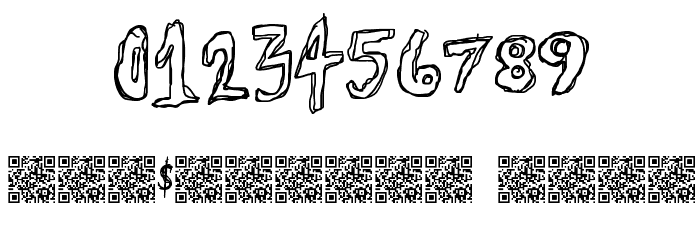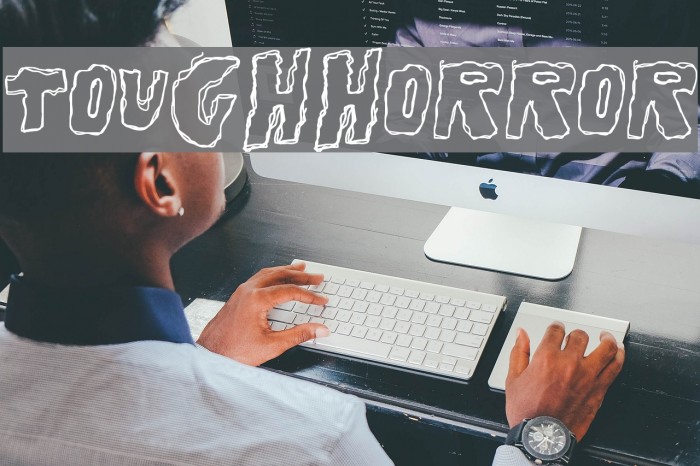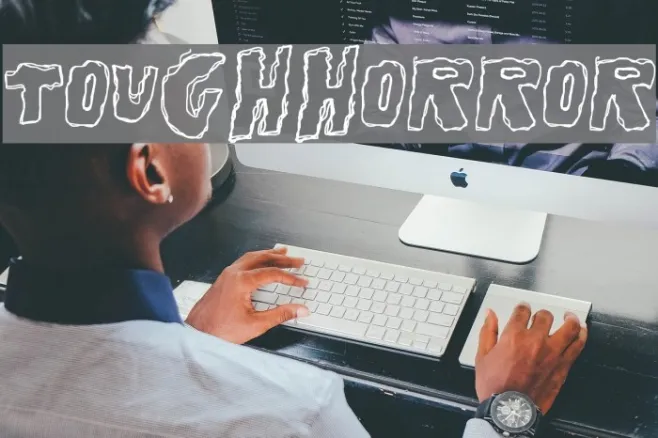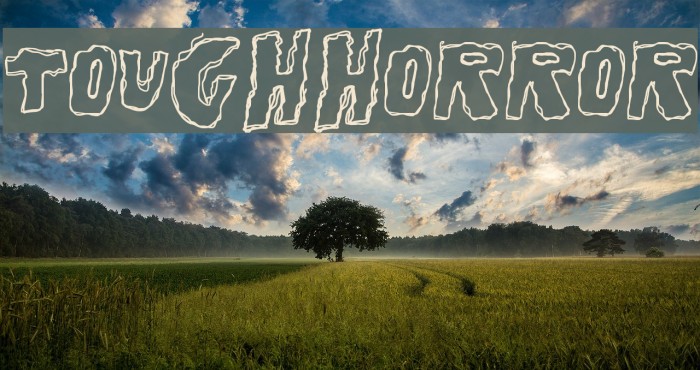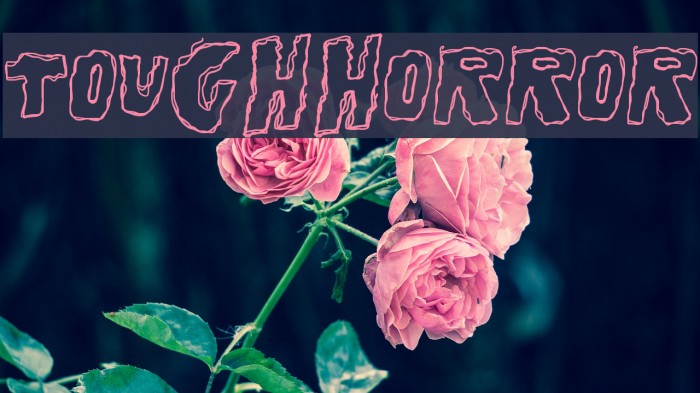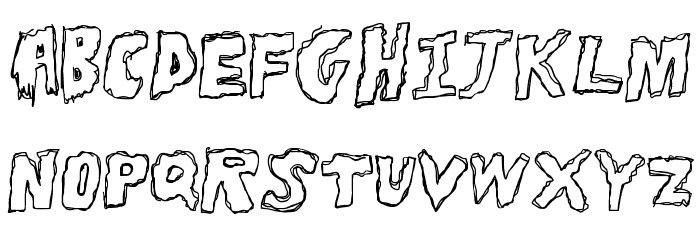
ToughHorror Font
This font features a rugged and eerie design, with each character appearing as if it is melting or dripping. The irregular edges and uneven strokes give it a distinctly horror-themed appearance, perfect for creating a sense of unease or suspense. The uppercase and lowercase letters maintain a consistent style, with jagged lines and a hand-drawn feel. The numbers and special characters follow the same aesthetic, ensuring a cohesive look across all text. This font is ideal for Halloween-themed projects, horror movie posters, or any design that requires a spooky and unsettling vibe.
A rugged, horror-themed font with dripping, jagged characters.
• Proposed Projects: Ideal for Halloween designs, horror movie posters, spooky invitations, and themed merchandise.